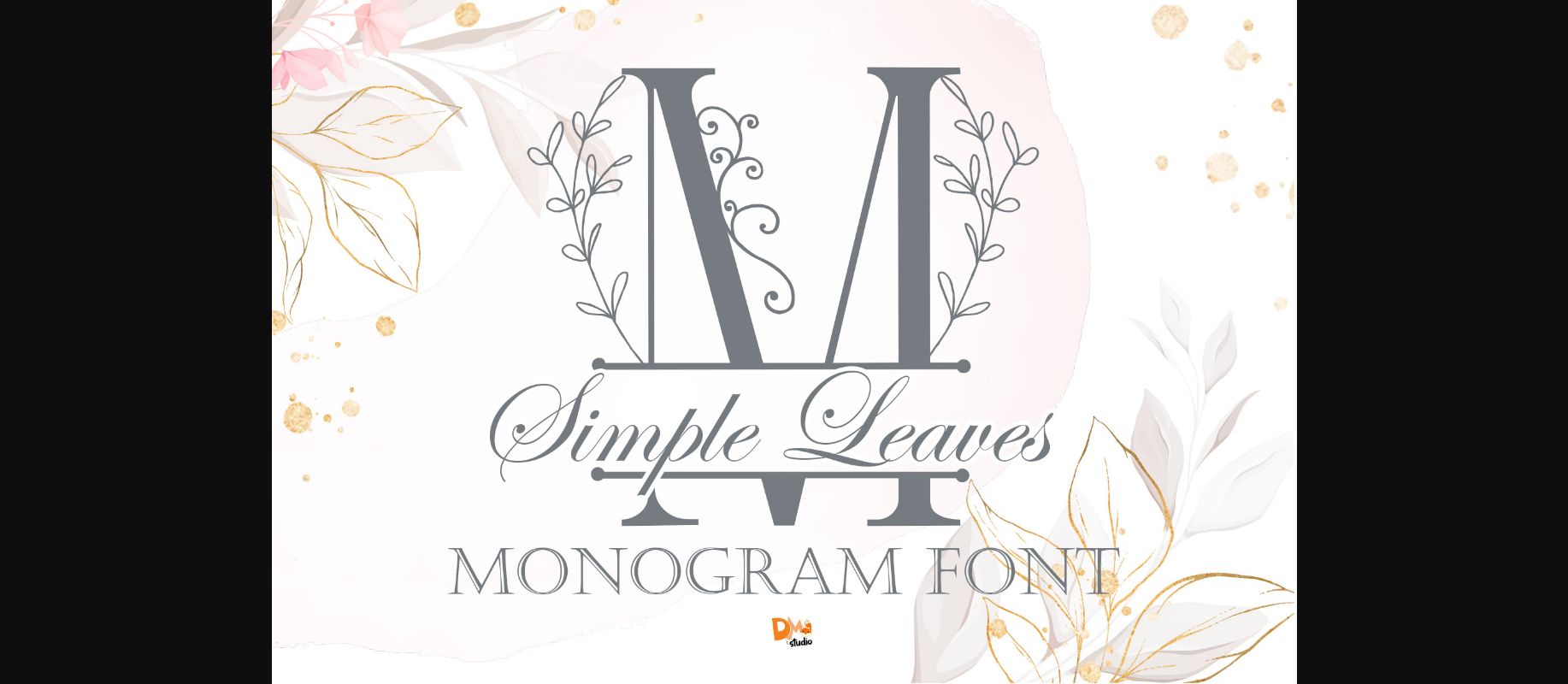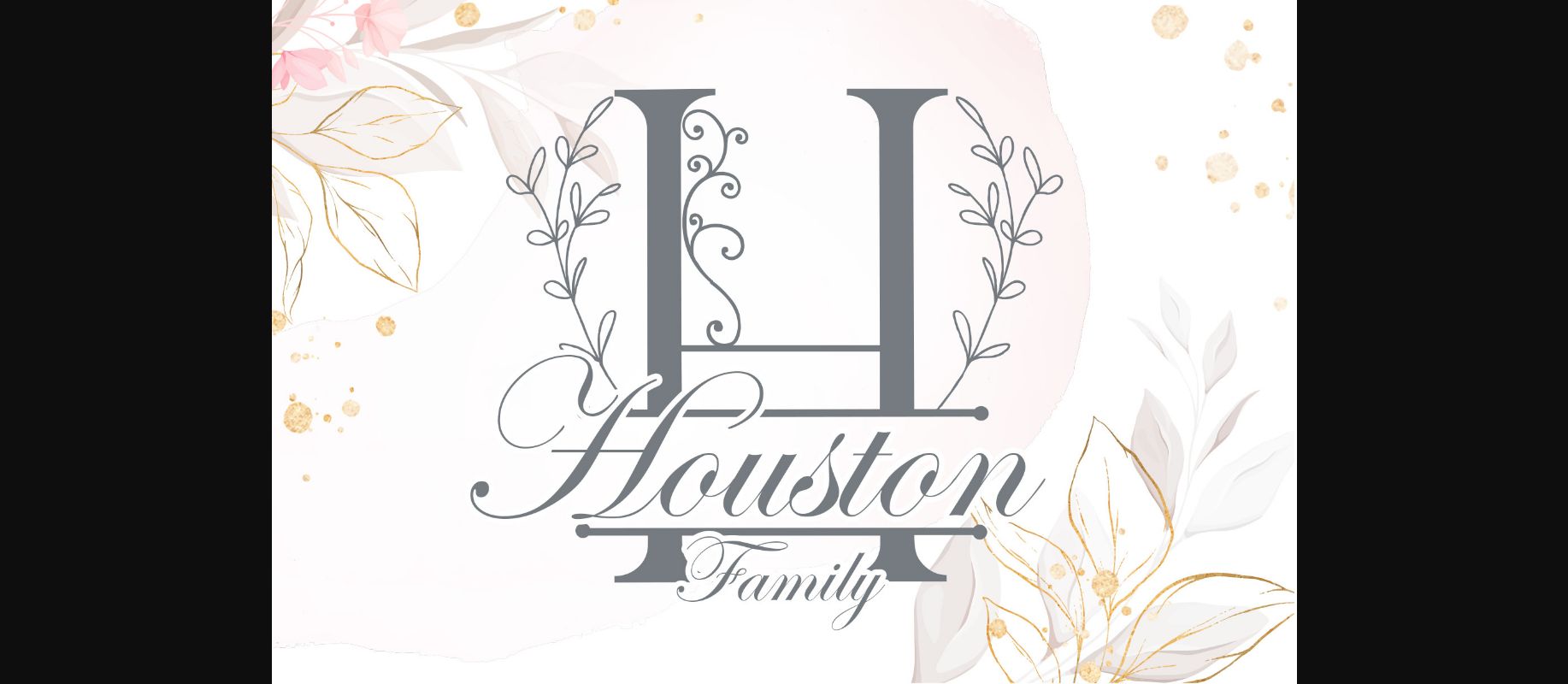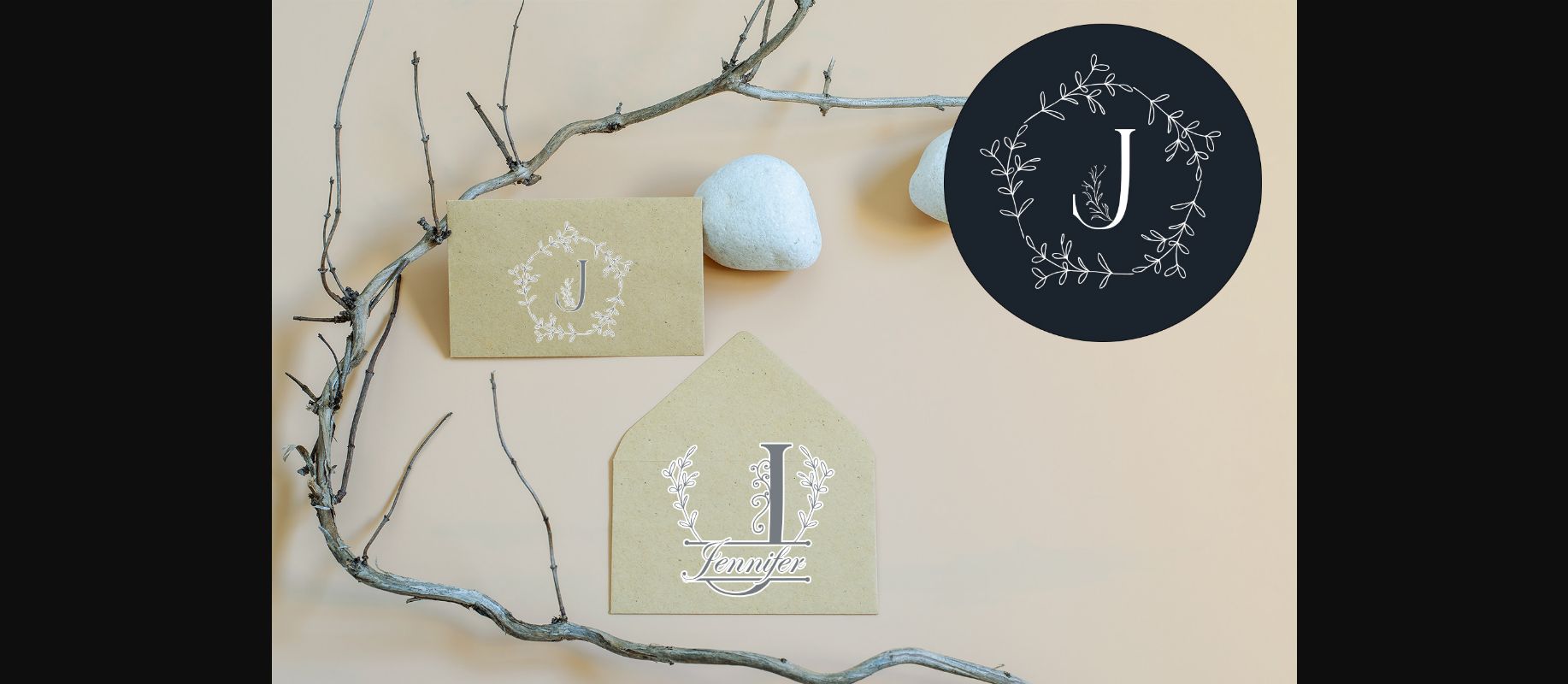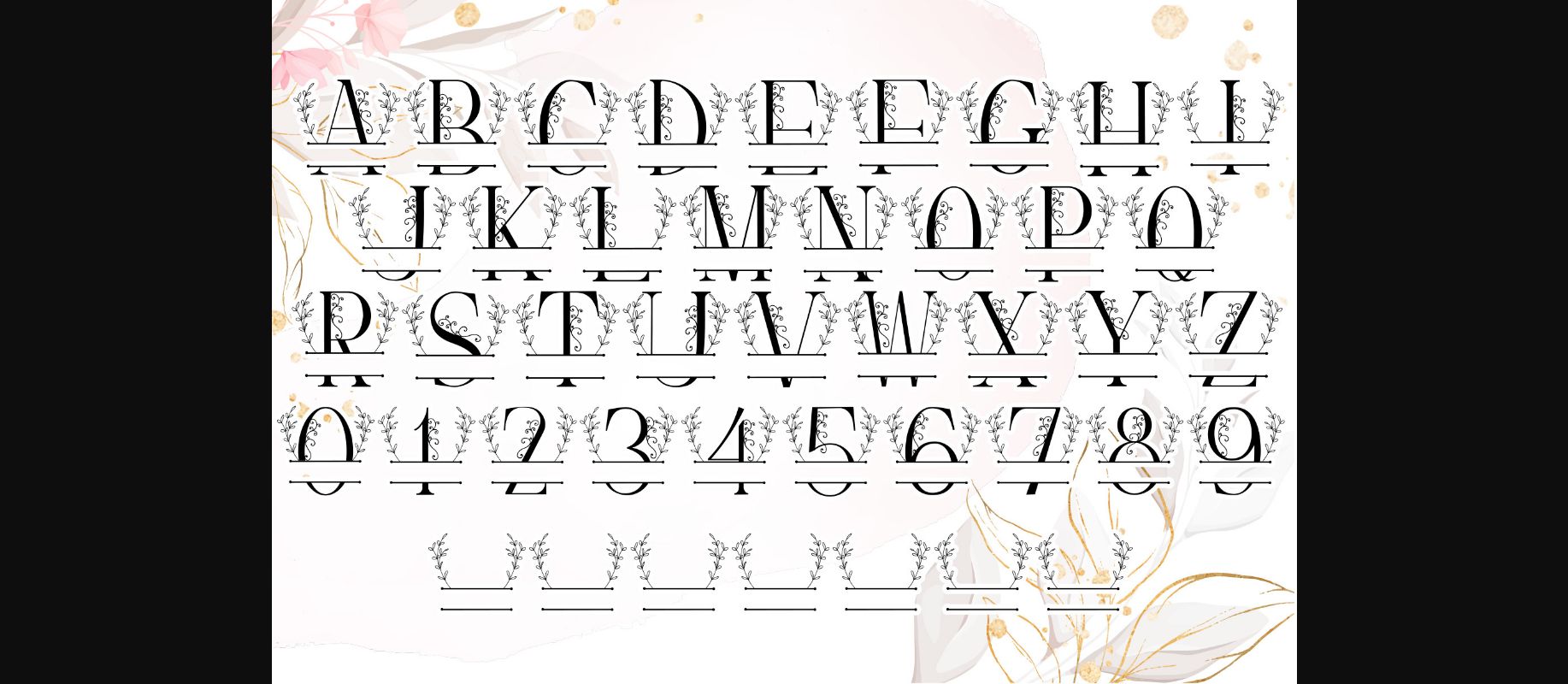
About Simple Leaves Monogram Font
Simple Leaves Monogram is a delicate and sweet decorative font. It looks stunning on wedding invitations, thank you cards, quotes, greeting cards, logos, business cards and every other design which needs a unique touch.